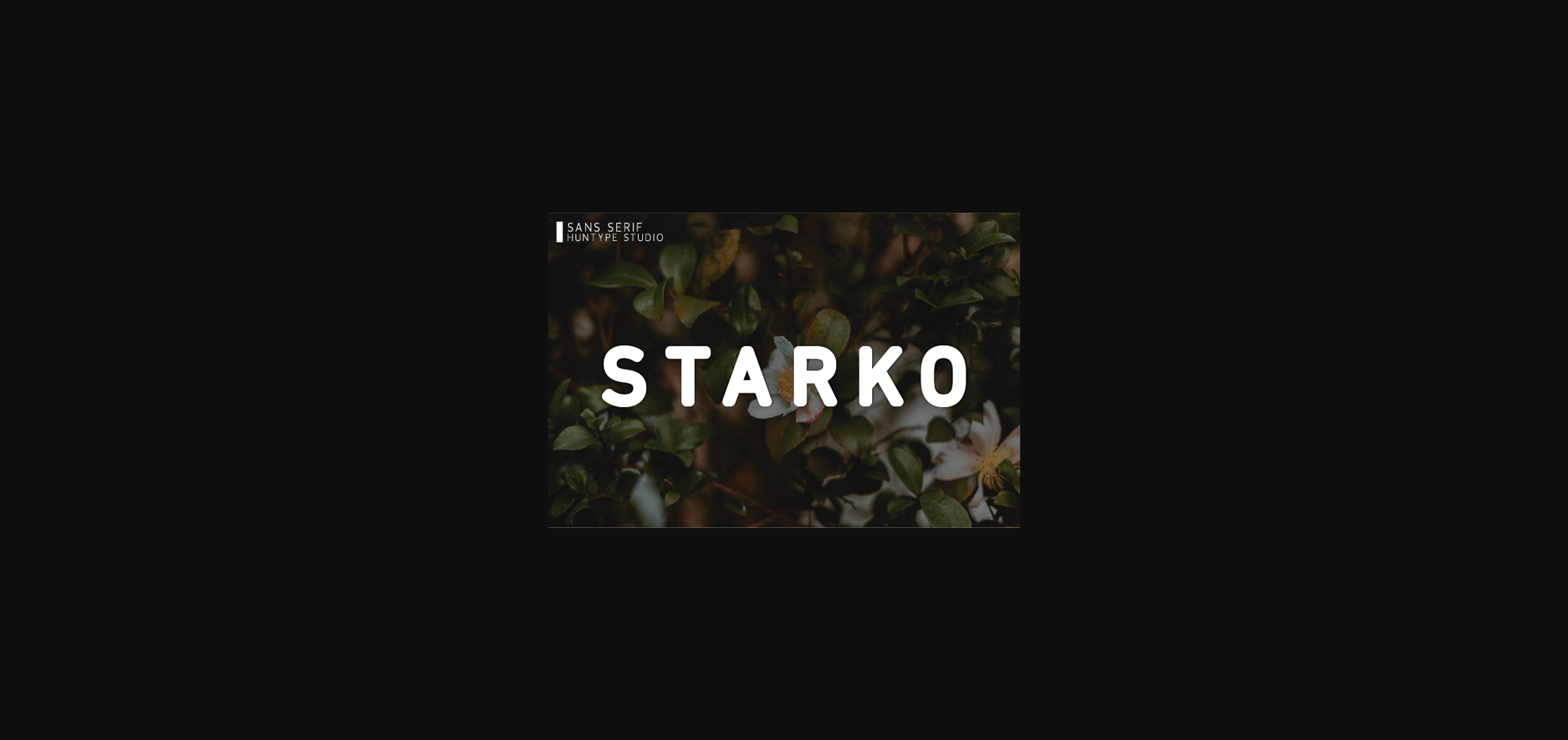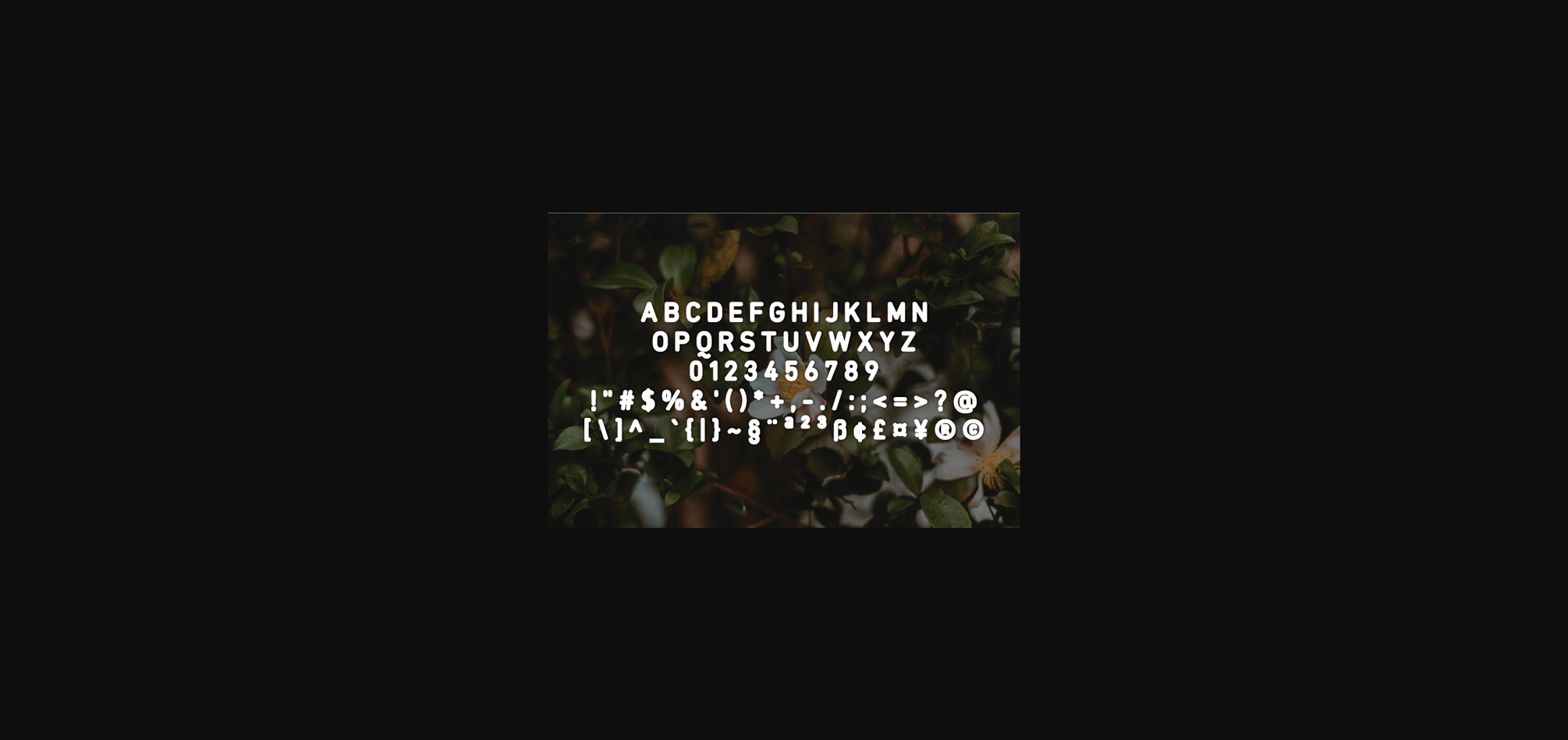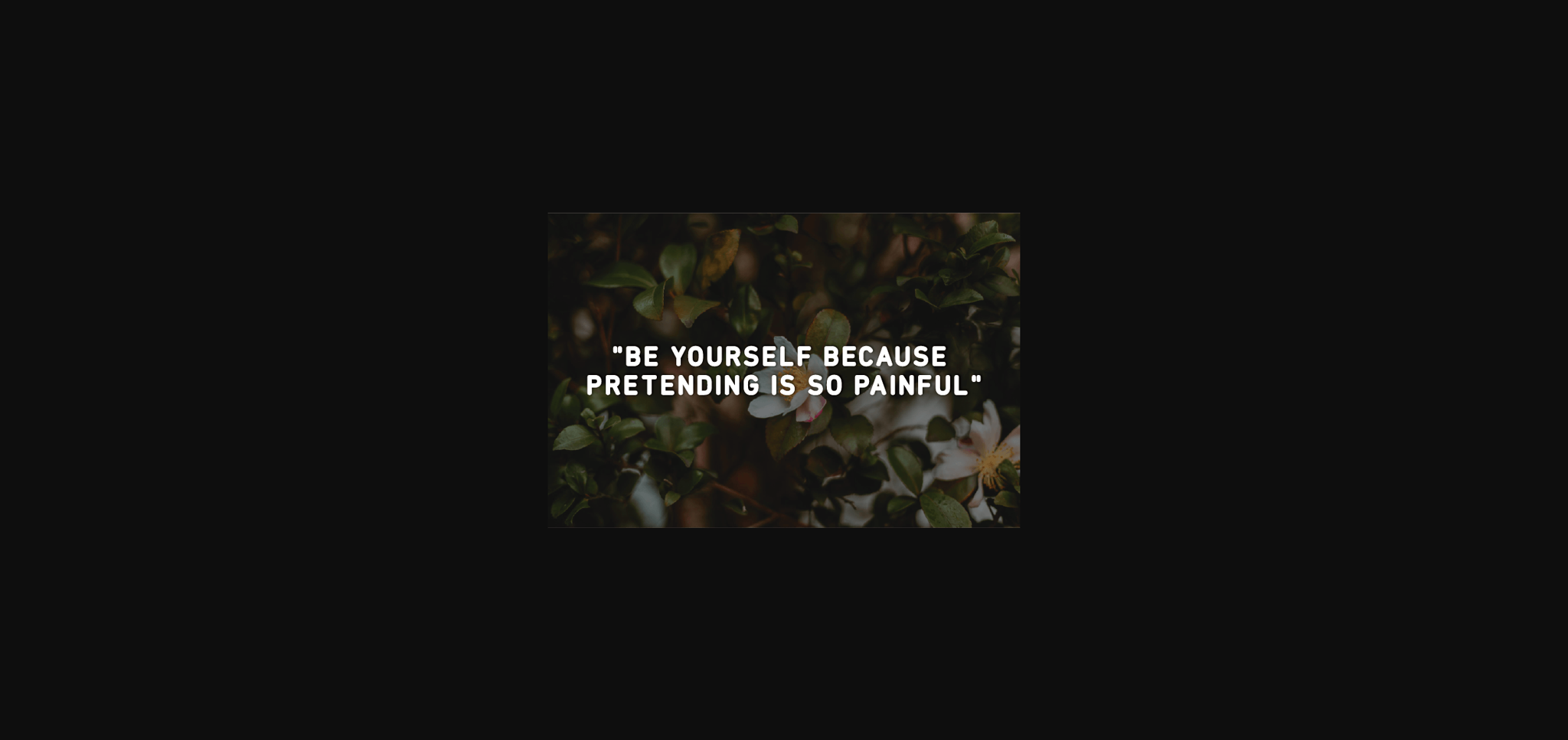
About Starko Font
Starko is a bold and clean sans serif font designed to complement every project you wish to create.
It is perfect for displays, headers, invitations, save the dates, weddings, and so much more!